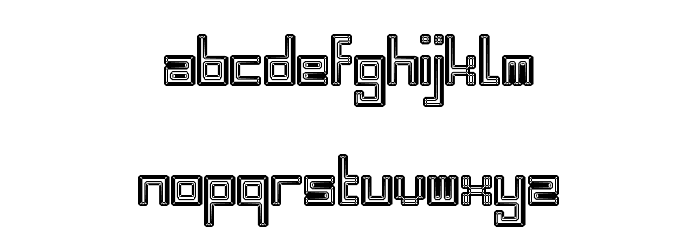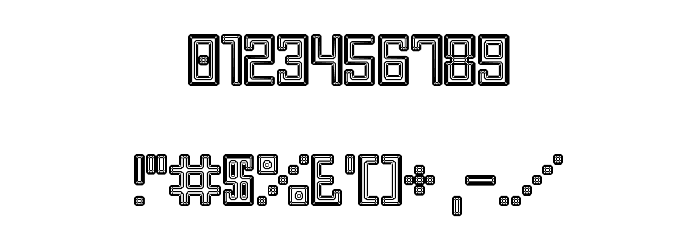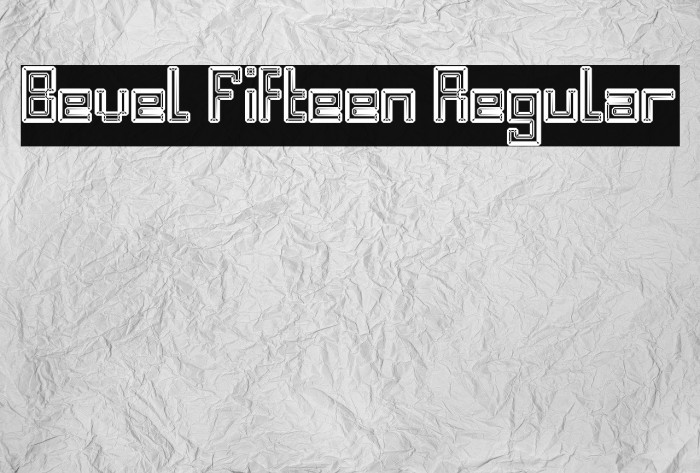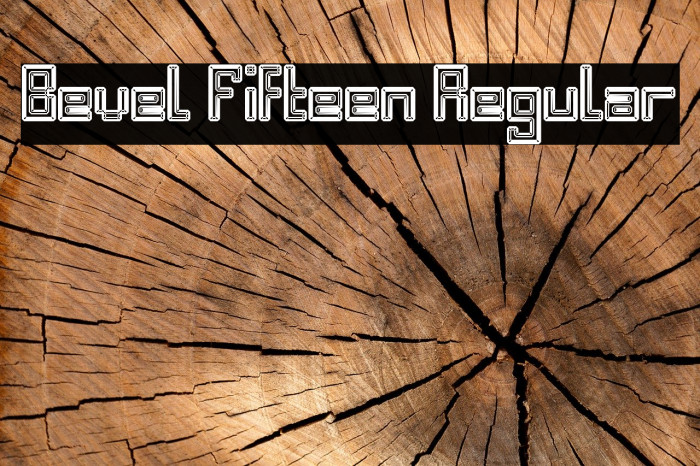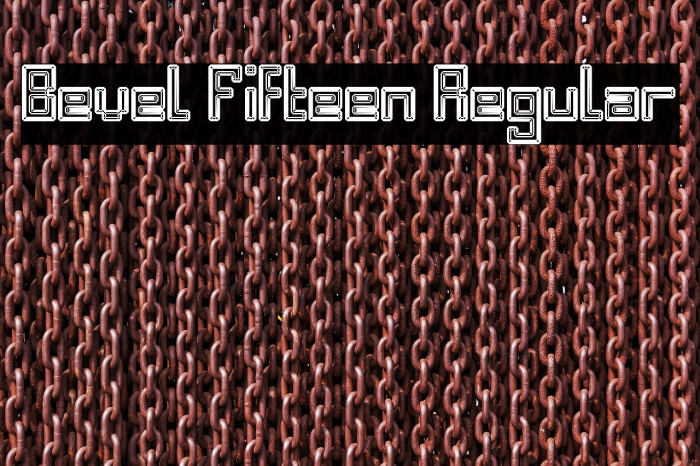
Bevel Fifteen Regular Font
This font features a distinct beveled design, giving each character a three-dimensional appearance. The letters are outlined with a double line, creating a shadow effect that enhances the depth and visual interest. The geometric structure of the characters is consistent, with sharp angles and clean lines, making it suitable for modern and futuristic themes. The uppercase and lowercase letters maintain a uniform style, while the numerals and special characters complement the overall aesthetic. This font is ideal for projects that require a bold and eye-catching display, such as posters, logos, and headlines.
A beveled, three-dimensional font with a modern, geometric style.
- Proposed Projects: Ideal for futuristic designs, tech branding, posters, and eye-catching headlines.